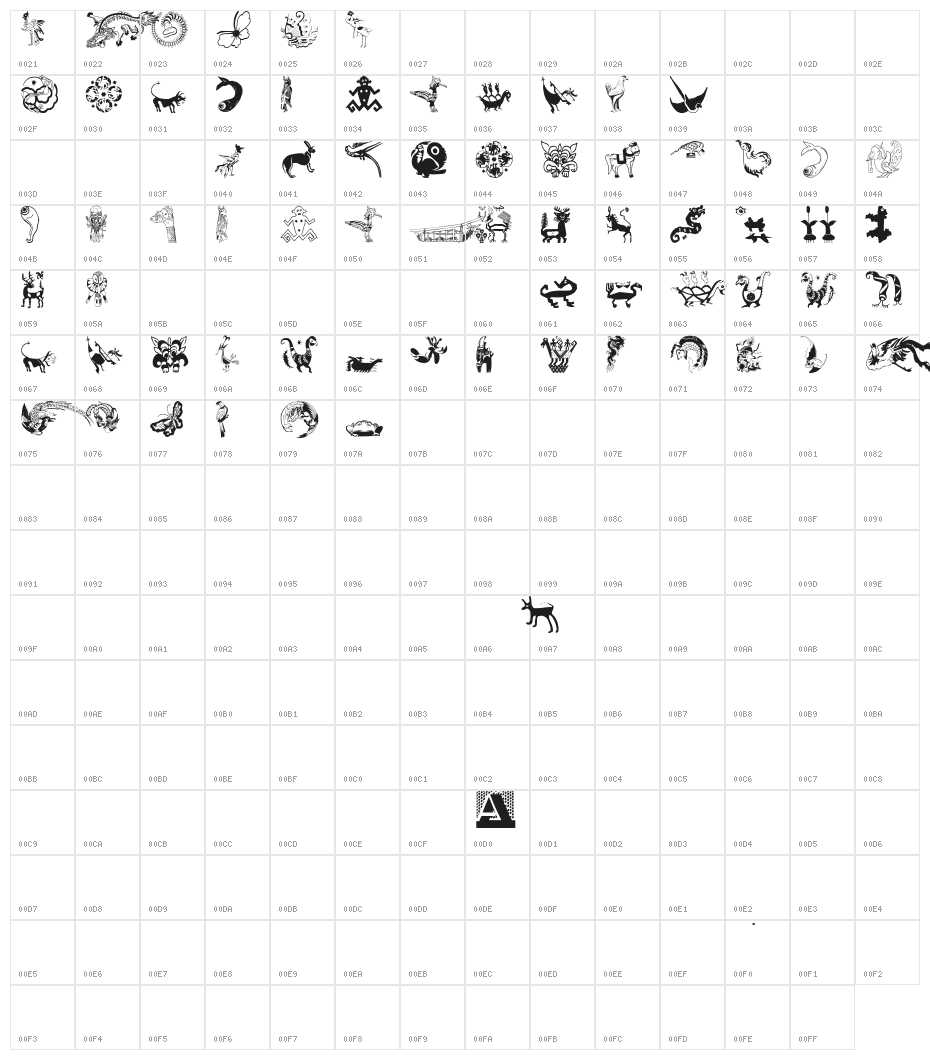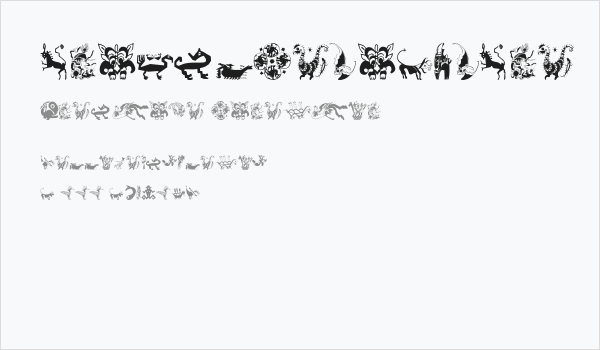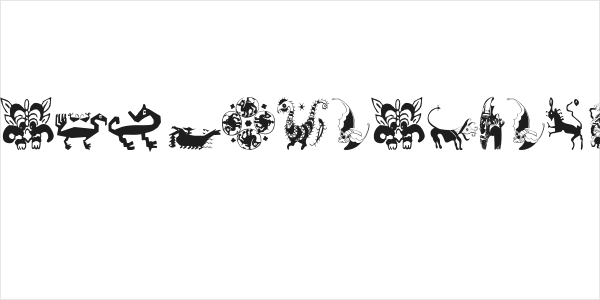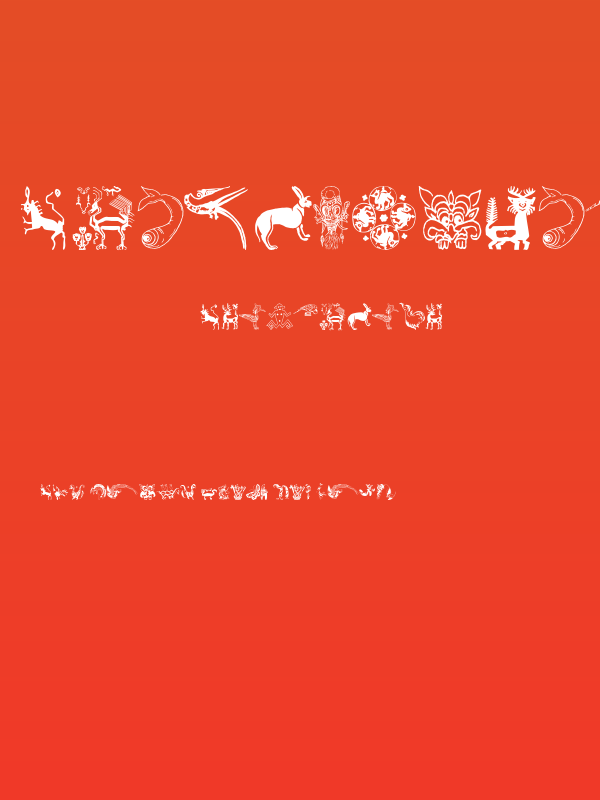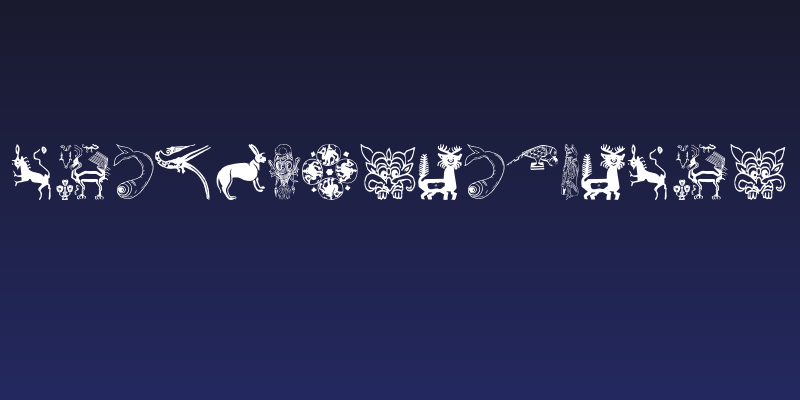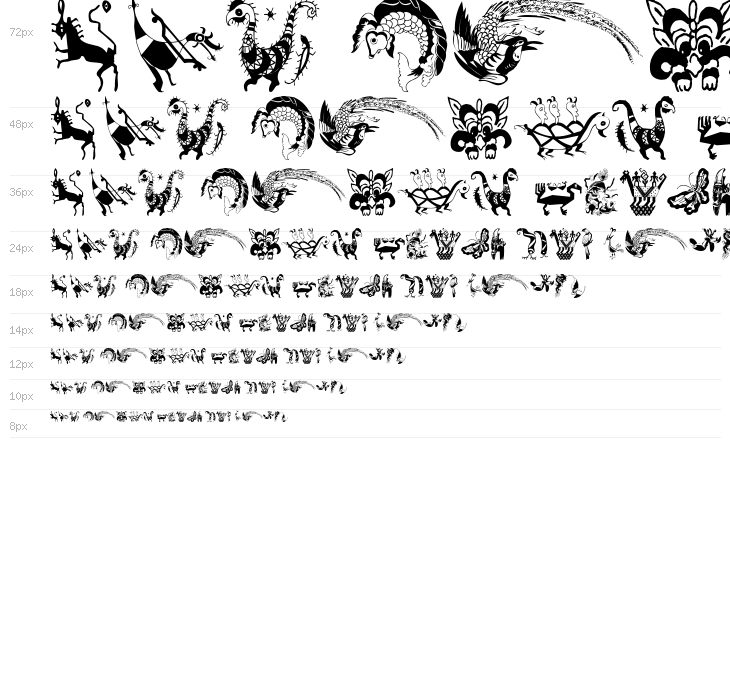
TribalDesigns_Tre Font
TribalDesigns_Tre Description
A highly decorative and illustrative font composed of tribal-inspired, intricate pictograms and motifs, each glyph representing a unique animal, figure, or ornamental design rather than traditional letterforms.
| Overall Style | Decorative, Tribal, Folkloric |
| Use Case | Logos, Headlines, Posters, Themed graphics |
| Proposed Projects | Posters, cultural event branding, decorative headings, art projects, themed invitations. |